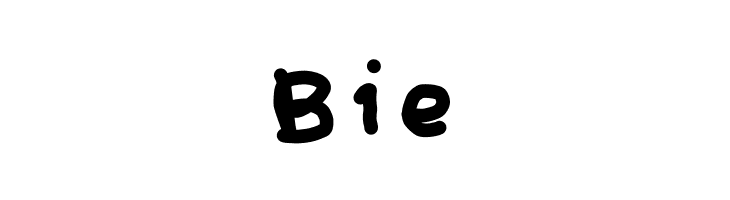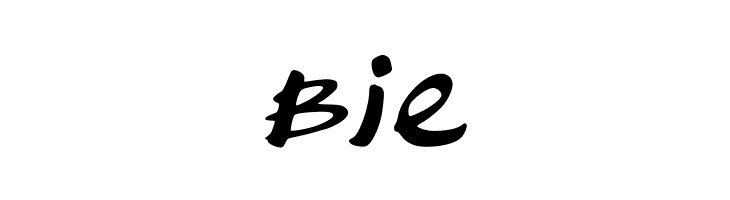
( Fonts by site.xavier.edu/polt/typewriters/ - Richard Polt )
A vintage, typewriter-style font with a bold, worn appearance.
A lively handwritten font with expressive and dynamic letterforms.
A lively and expressive script font with dynamic strokes and playful elegance.
( Owen Earl - indestructibletype.com/ )
( Fonts by Grzegorz l - www.glukfonts.pl )
A modern, bold sans-serif font with geometric lines and a professional appearance.
( Fonts by Grzegorz l - www.glukfonts.pl )
A modern, italic sans-serif font with clean lines and a dynamic slant.
( Fonts by Grzegorz l - www.glukfonts.pl )
A modern, clean sans-serif font with a slightly condensed style.
( Fonts by GLUK fonts )
A modern, clean sans-serif font with low contrast and a sleek appearance.
( Fonts by Grzegorz l - www.glukfonts.pl )
A bold, modern typeface with clean lines and a strong presence.
( Fonts by Grzegorz l - www.glukfonts.pl )
A modern, light-weight font with clean lines and excellent readability.
( gluk - Grzegorz l - www.glukfonts.pl )
A modern, geometric sans-serif font with uniform line thickness.
( gluk - Grzegorz l - www.glukfonts.pl )
A bold, modern sans-serif font with clean lines and excellent readability.
( gluk - Grzegorz l - www.glukfonts.pl )
A sleek, modern italic font with clean lines and a sophisticated style.
A bold, geometric font with strong, impactful letterforms.
A bold, geometric font with a strong, modern presence.
A bold, modern font with thick, uniform strokes and a strong geometric influence.
A sleek, geometric font with a modern and minimalistic design.
A sleek, extra-light italic sans-serif font with a modern and dynamic style.
A bold, rounded font with a strong, uniform presence.
A bold, rounded font with a strong, cohesive appearance.
( Fonts by Mans Greback - www.mawns.com )
An ornate script font with elegant swashes and decorative flourishes.
( Måns Grebäck - www.mansgreback.com )
An elegant script font with intricate flourishes and a refined, flowing style.
( Måns Grebäck - www.mansgreback.com )
An elegant, cursive font with intricate swashes and flourishes.
( Fonts by Mans Greback - www.mawns.com )
An elegant script font with ornate swirls and flourishes, exuding luxury and sophistication.
( Fonts by Mans Greback - www.mawns.com )
An elegant script font with intricate swashes and high contrast strokes.
( Fonts by Mans Greback - www.mawns.com )
An elegant, swash-filled cursive font with a slanted, decorative style.
( Andy Kennedy )
A modern, geometric font with thin lines and a minimalist style.
( Fonts by Grzegorz l - www.glukfonts.pl )
A modern, narrow sans-serif font with clean lines and a sleek appearance.
( Fonts by GLUK fonts )
A modern, sleek font with tall, narrow characters and a sophisticated style.